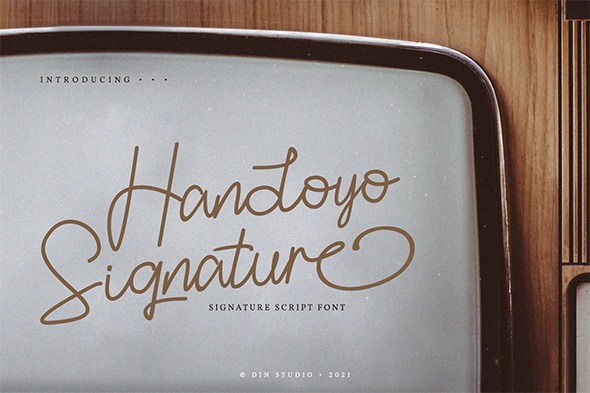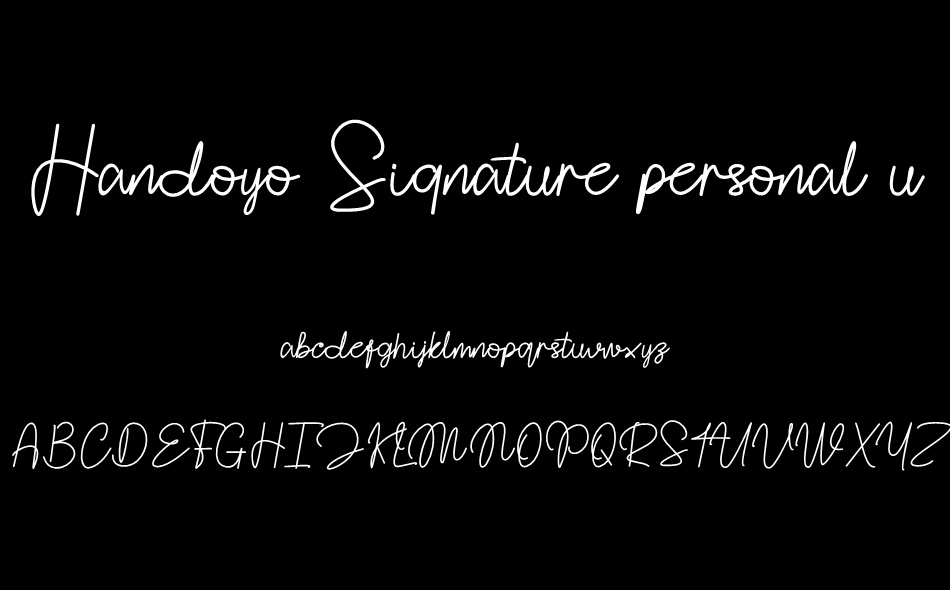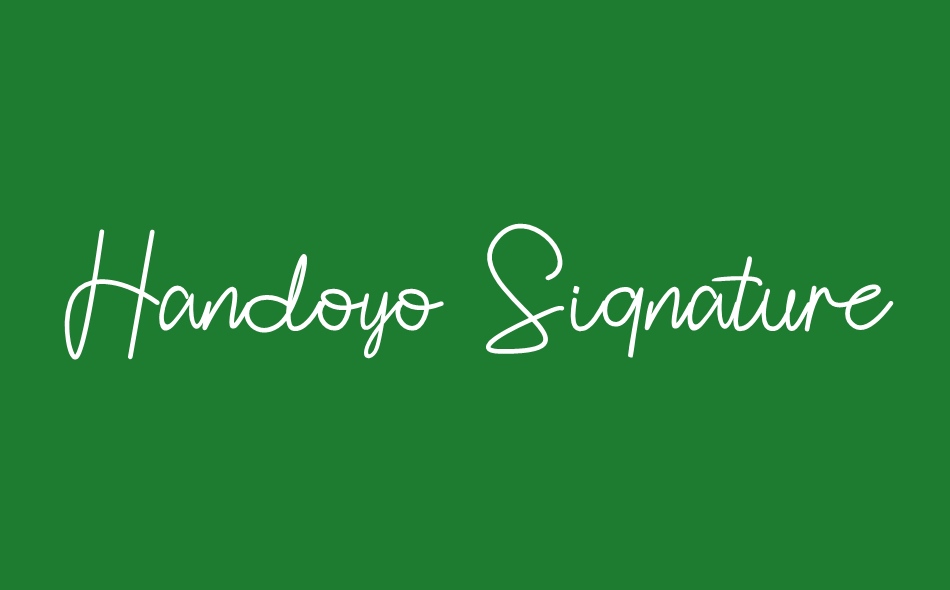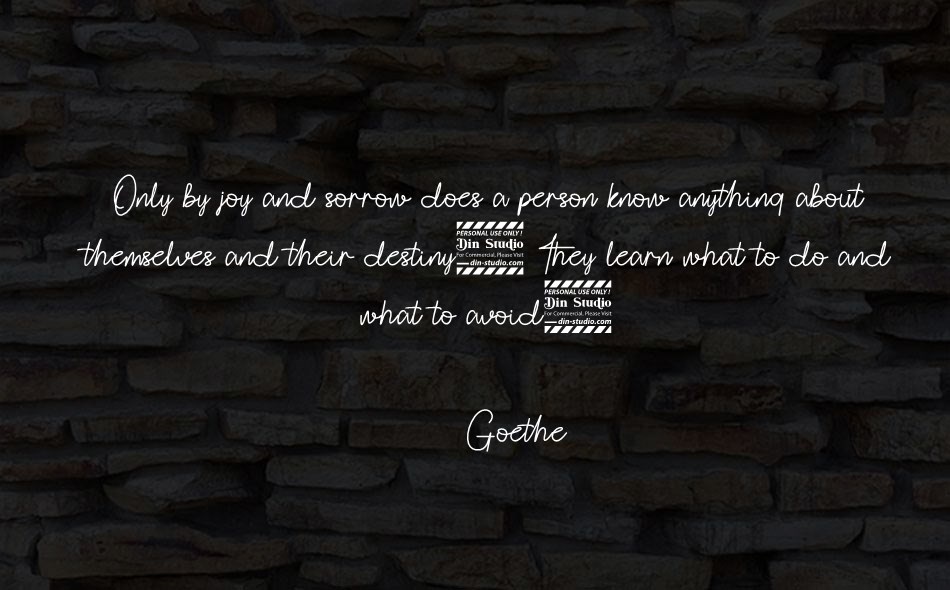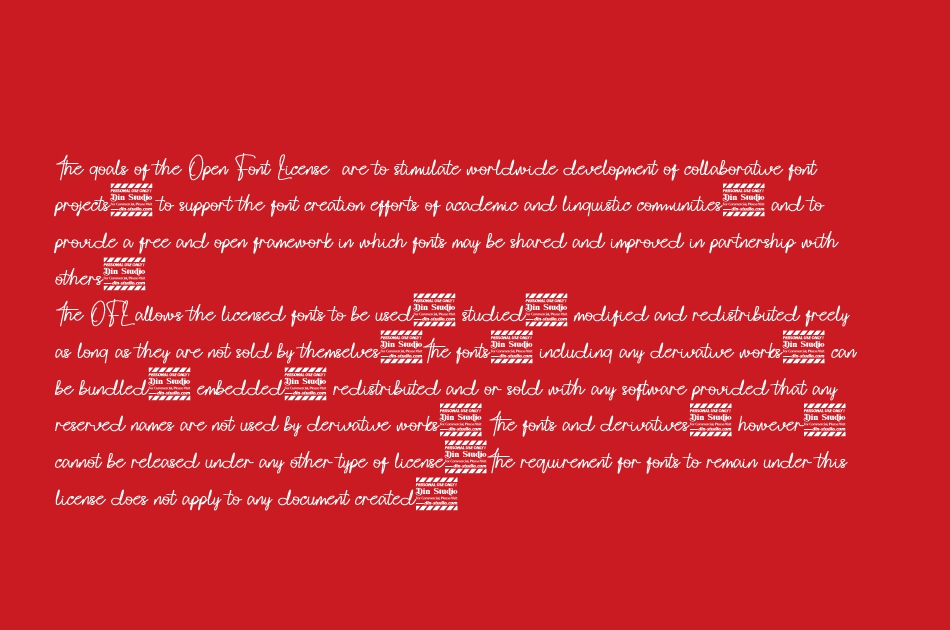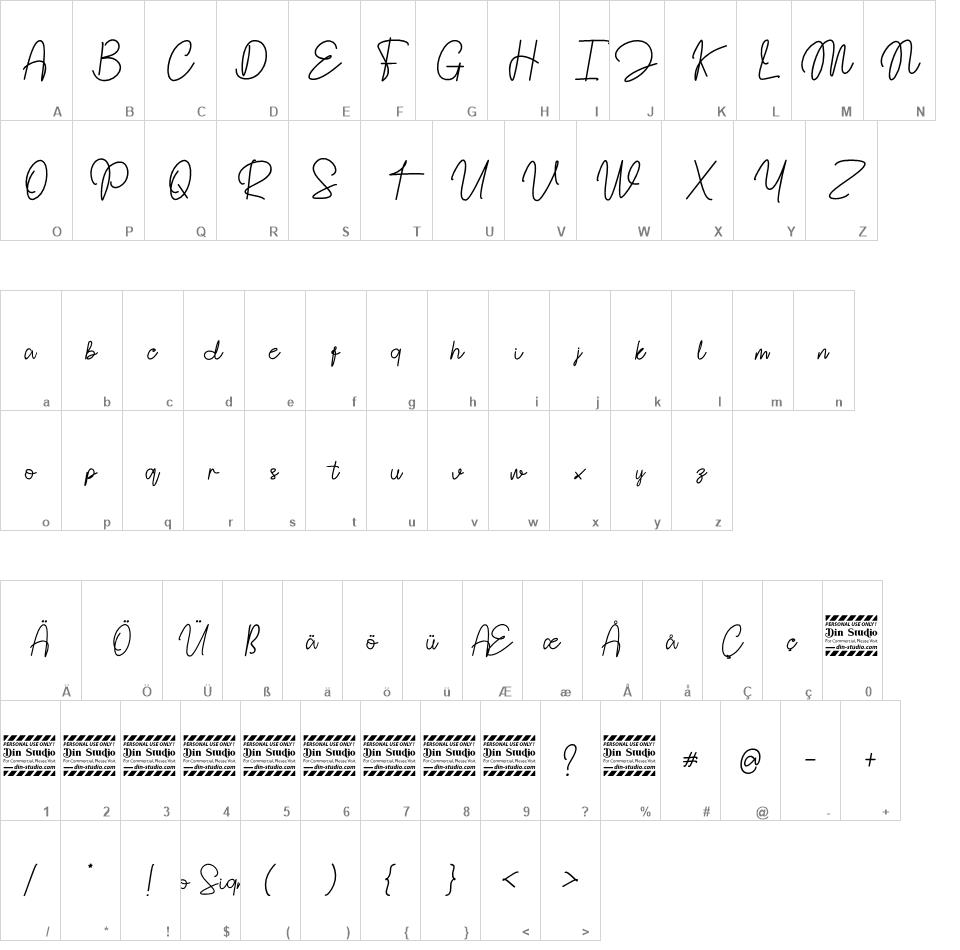
Handoyo Signature font
Introducing Handoyo Signature- A Signature Font
Handoyo Signature is a modern and elegant handcrafted signature font to embrace your audiences or guests. Every stroke and curve was created to capture the essence of elegance and style. Perfect for social media posts and ads, printed quotes, t-shirt designs, packaging, or even as a modern text overlay to any background image.
Handoyo Signature includes Multilingual Options to make your branding globally acceptable.
Introducing Handoyo Signature- A Signature Font
Handoyo Signature is a modern and elegant handcrafted signature font to embrace your audiences or
guests. Every stroke and curve was created to capture the essence of elegance and style. Perfect for
social media posts and ads, printed quotes, t-shirt designs, packaging, or even as a modern text overlay to
any background image.
Handoyo Signature includes Multilingual Options to make your branding globally acceptable.